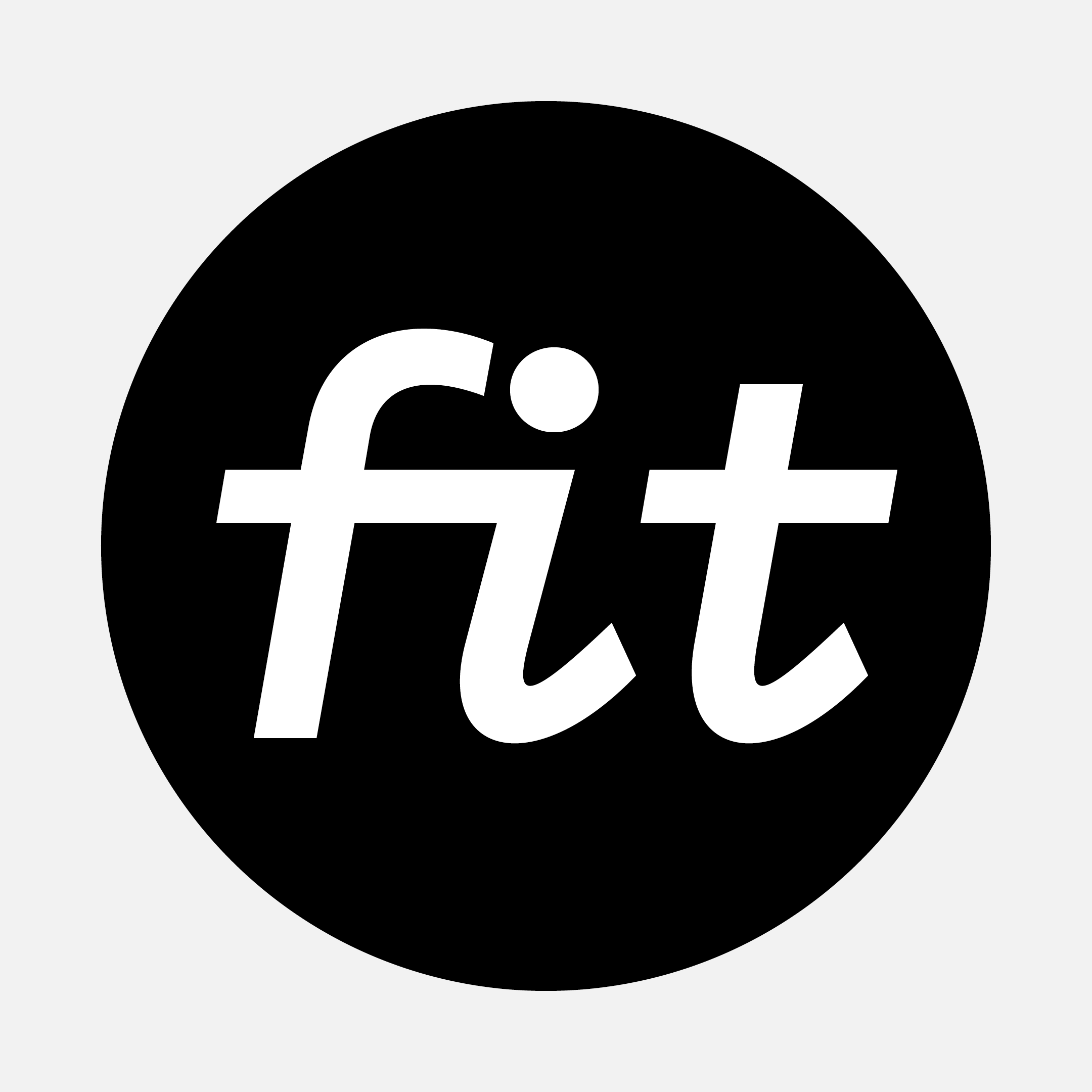
Lipo Text
As a functional complement to the distinctly wide display family Lipo, Lipo Text was created, translating its character into a more readable, everyday form. While the display version works with extreme proportions, Lipo Text refines these principles and adapts them for longer texts and smaller sizes without losing its distinctive personality.
Typologically, it is a hybrid at the intersection of monospace, sans serif, and slab serif typefaces. At first glance, it evokes the mechanical logic of non-proportional fonts, preserving their rhythm and visual mimicry. Yet, in reality, it employs variable character widths, most noticeable in naturally wider letters. At the same time, it carefully adjusts letter spacing, achieving balanced typesetting without disruptive gaps. In cases where a purely monospace principle would result in overly narrow or optically weak characters, Lipo Text uses characteristic slab serifs that serve not only an aesthetic role but also actively expand character proportions and stabilize their shapes. The result is a typeface that retains a technical expression while remaining surprisingly approachable, readable, and lively—especially in extended reading, where its nuances fully emerge.
Lipo Text features extensive language support, including extended Latin, extended Cyrillic, and Greek scripts, making it suitable for multilingual projects. Its italic is designed with a strong emphasis on distinction from the upright styles—it has its own dynamics and character, allowing it to function not only as a complement but also as an independent expressive element within the typographic system.